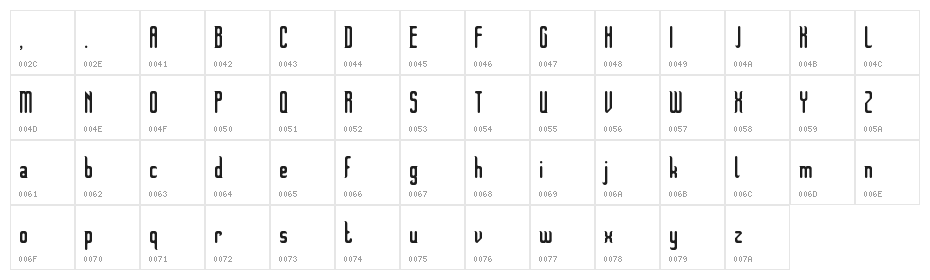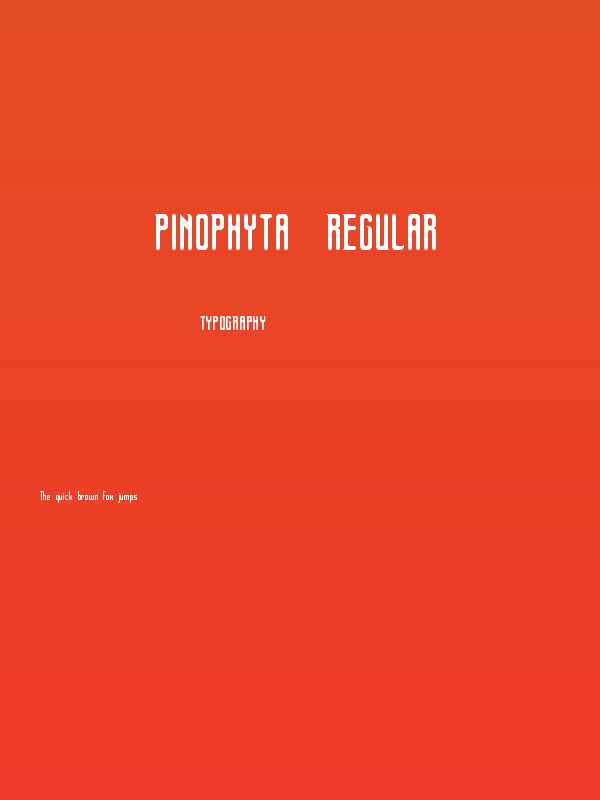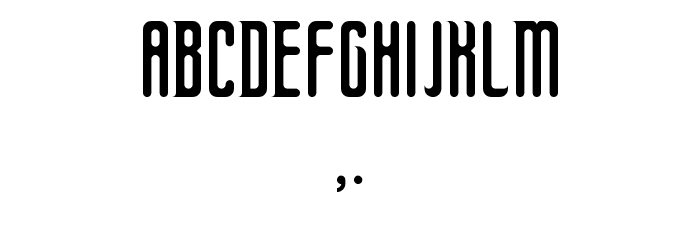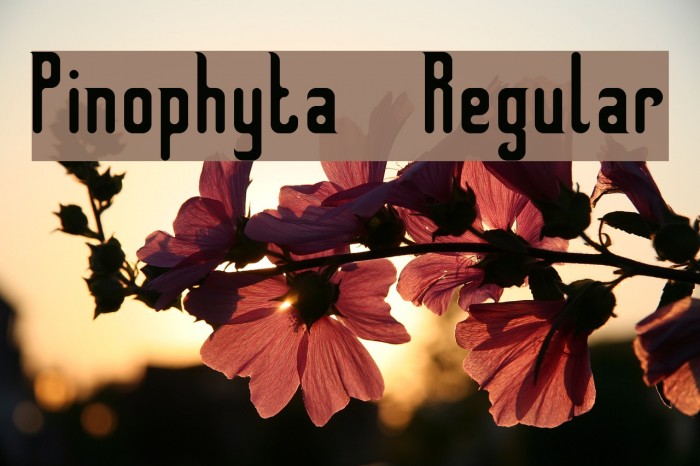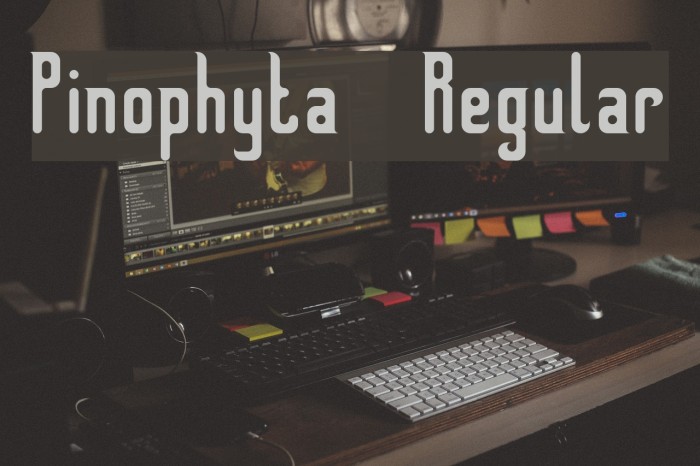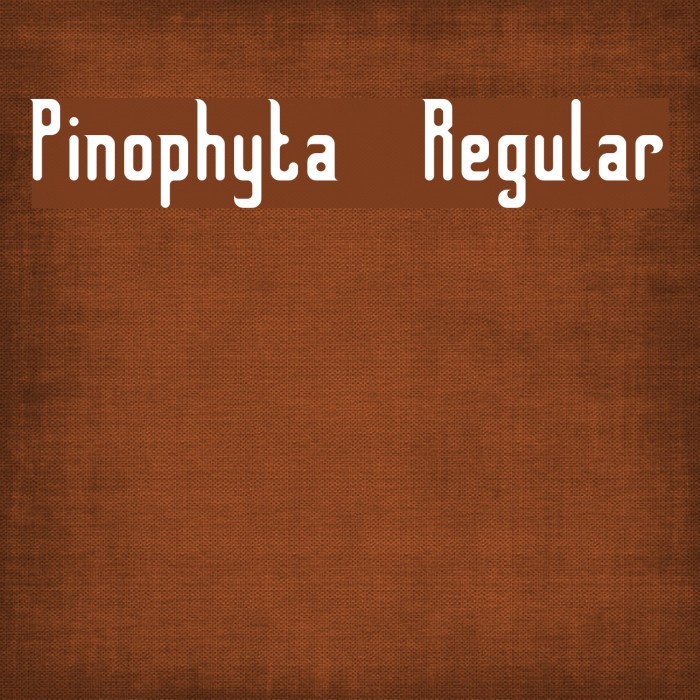
Pinophyta Regular Font
Pinophyta Regular Description
This font features a unique blend of modern and vintage elements, characterized by its bold and slightly condensed letterforms. The uppercase letters are tall and narrow, with rounded edges that give a soft yet structured appearance. The lowercase letters maintain a consistent style, with distinctive curves and a playful touch. The numbers are uniform and align well with the overall design, while the special characters add a quirky flair. This font's design is both eye-catching and versatile, making it suitable for a variety of creative projects.